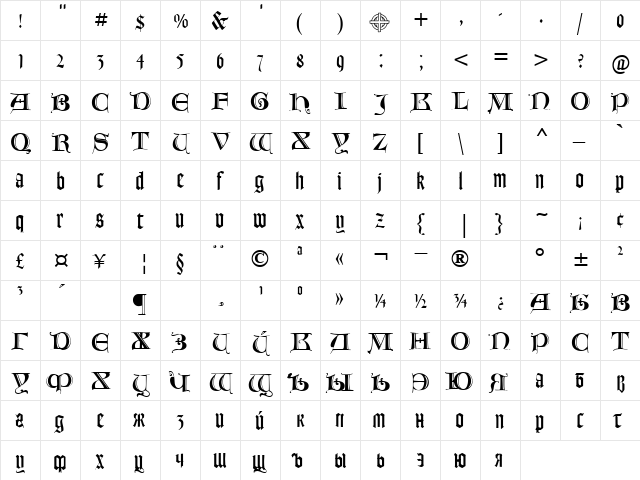
Tzimizce Cyr Regular
Design Context for Tzimizce Cyr Typeface
Tzimizce Cyr is a composed and adaptable typeface that performs quietly and consistently across a wide range of design contexts.